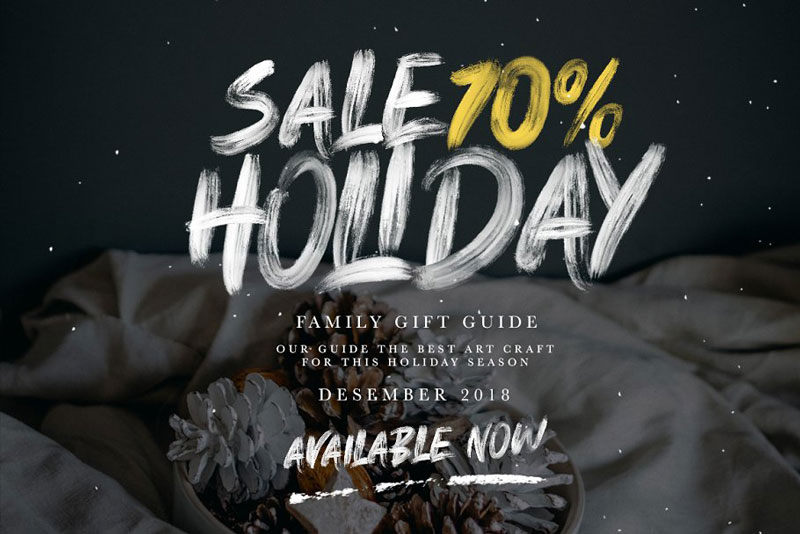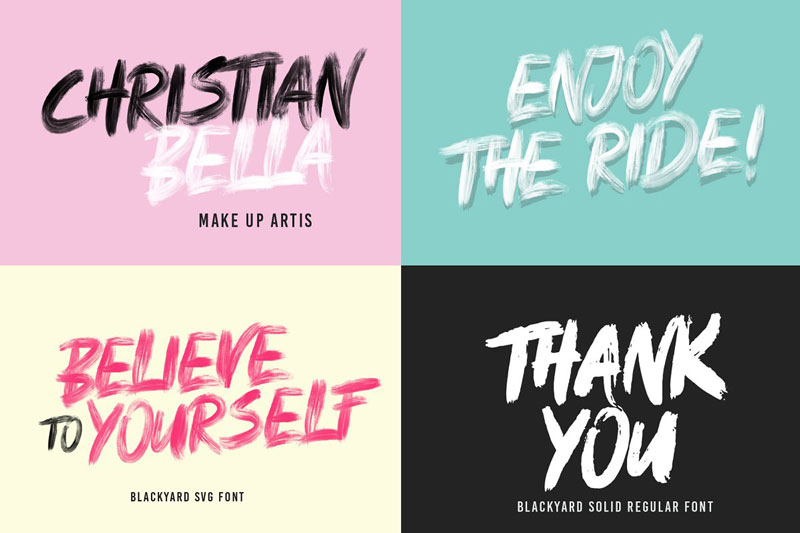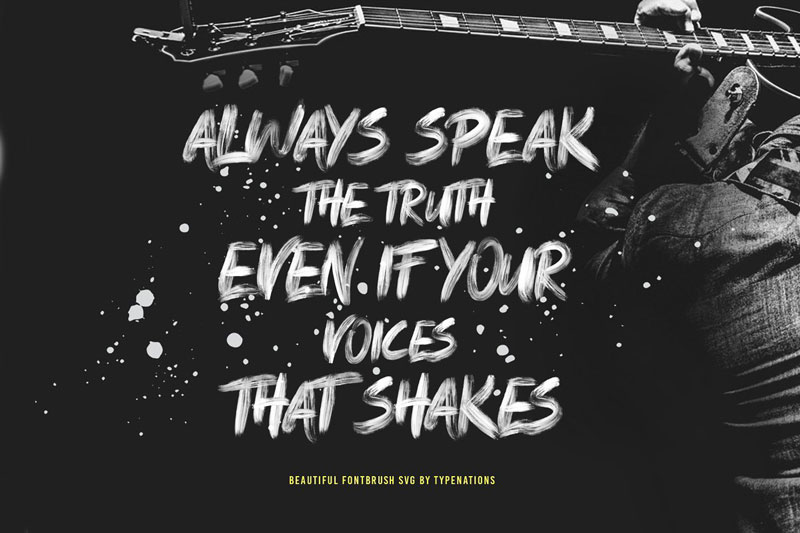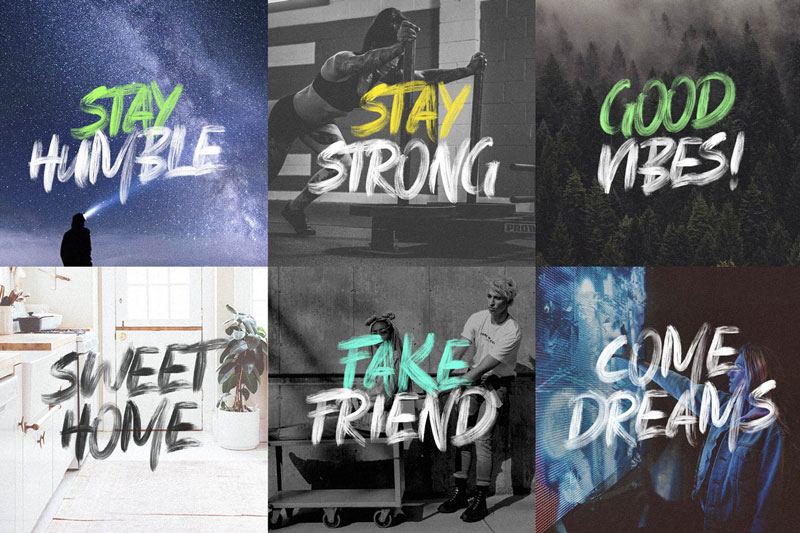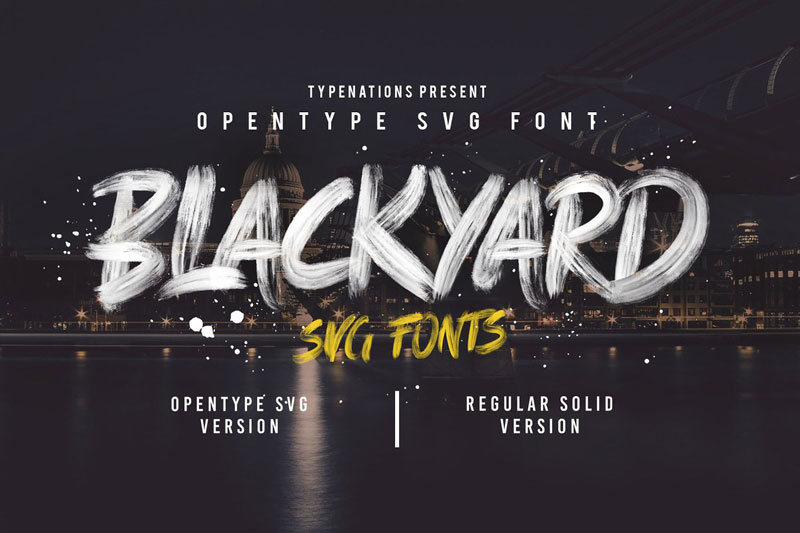
Blackyard OpenType – SVG Font
Blackyard is Original Handwritten letters. Using new Opentype-SVG font technology to provide super-high-resolution paint strokes completely built into the font as a transparency. This font can be used for vintage themes or themes with contemporary styles.
Blackyard perfect to use for anything from promotional material and handwritten quotes, to product packaging, merchandise, branding projects, Etc.